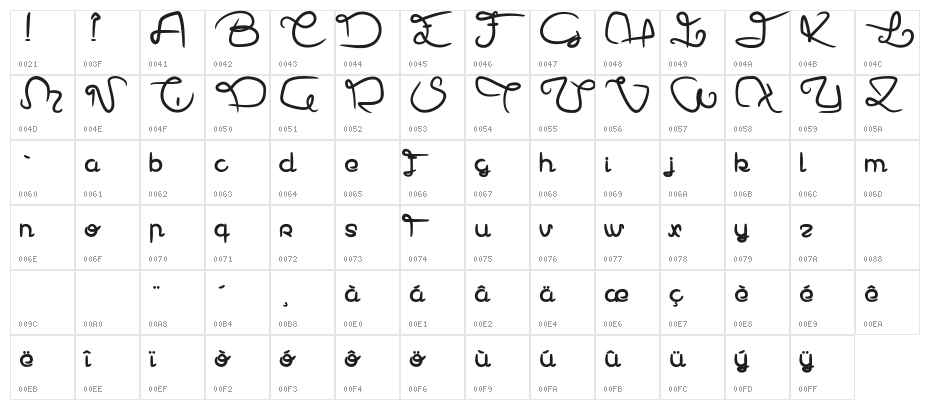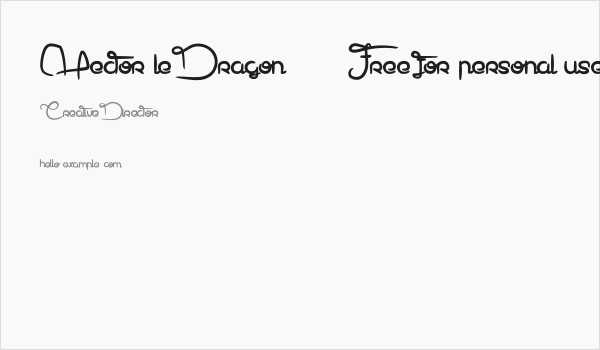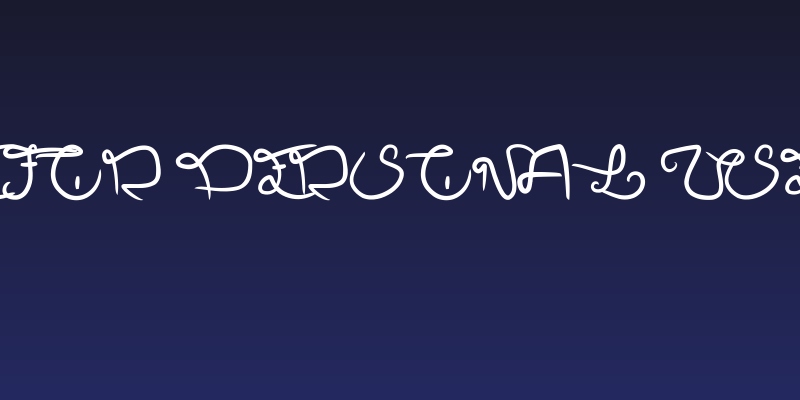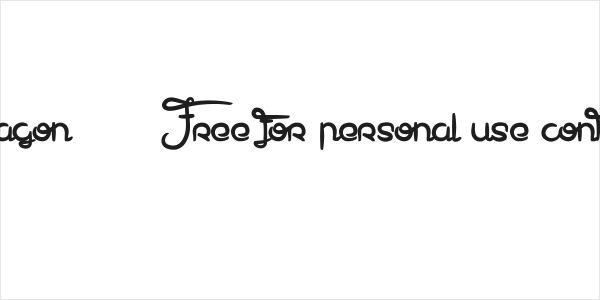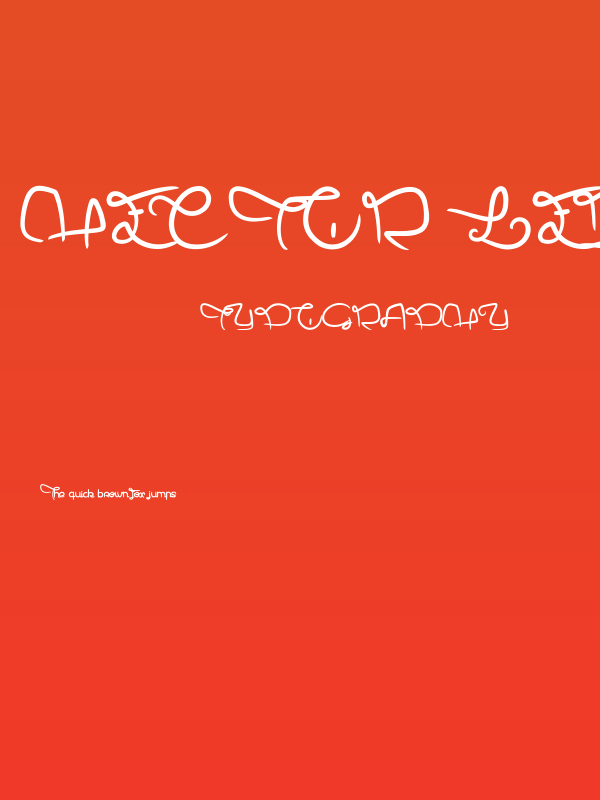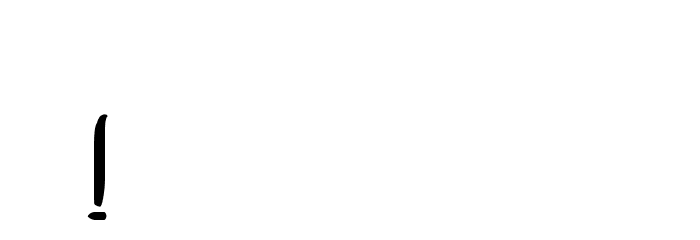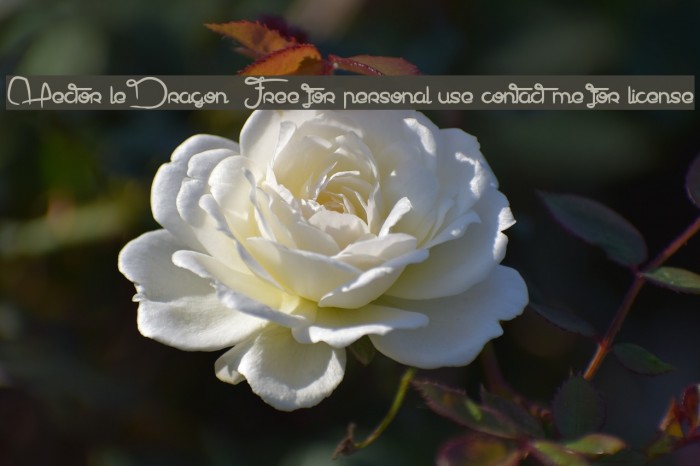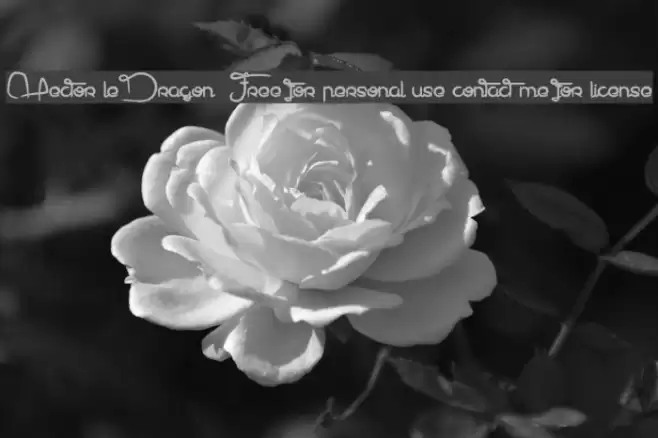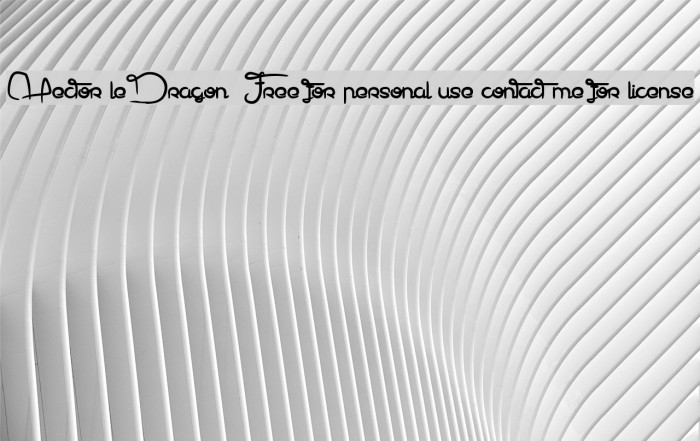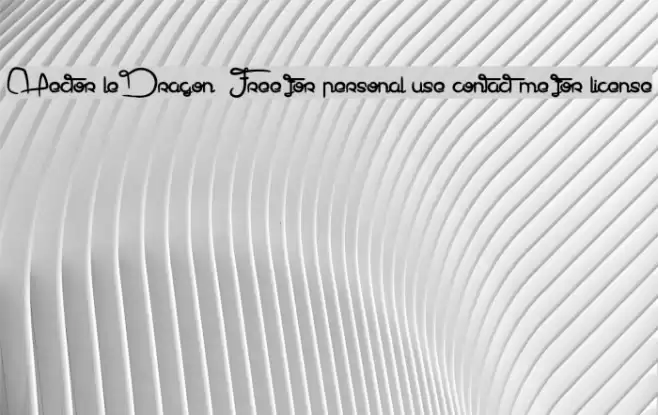
Hector le Dragon ---- Free for personal use contact me for license Font
Hector le Dragon ---- Free for personal use contact me for license Description
This font features a highly decorative and intricate design, characterized by its swirling, interconnected strokes that create a sense of movement and fluidity. The uppercase letters are particularly elaborate, with loops and curves that extend beyond the typical letterform boundaries. The lowercase letters maintain a similar style but with slightly less complexity, ensuring readability while retaining the overall aesthetic. The font's unique style is further emphasized by its bold weight, which adds to its visual impact. The character spacing is relatively tight, contributing to the cohesive appearance of the text. This font is ideal for projects that require a distinctive and artistic touch, such as invitations, posters, or branding materials that aim to stand out.
| Proposed Projects | Ideal for invitations, posters, branding materials, and any project requiring a unique artistic touch. |